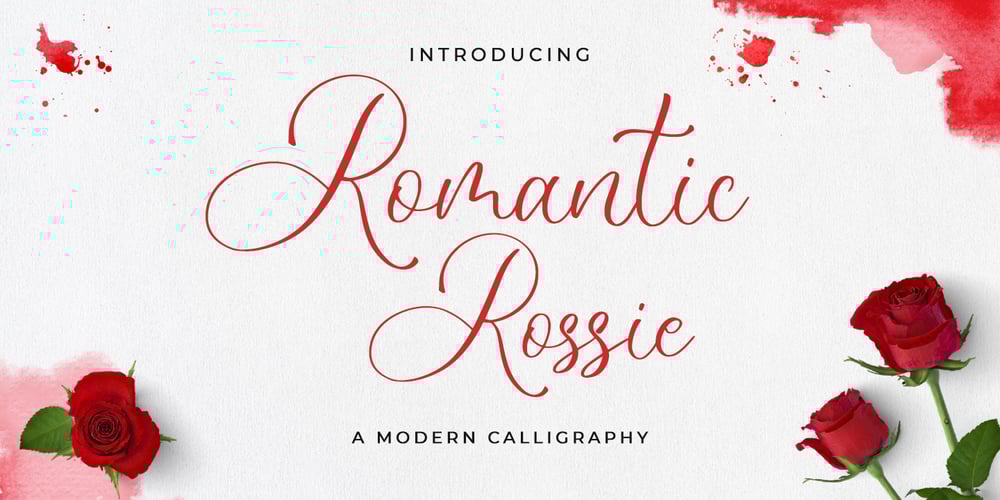
Romantic Rossie Font Family was designed by Novia Himatunnisa and published by Nissa Nana. Romantic Rossie contains 1 styles and family package options. Romantic Rossie is an elegant and dainty handwritten font that features sweet and delicate swashes. This original look will appeal to a wide range of crafty ideas.